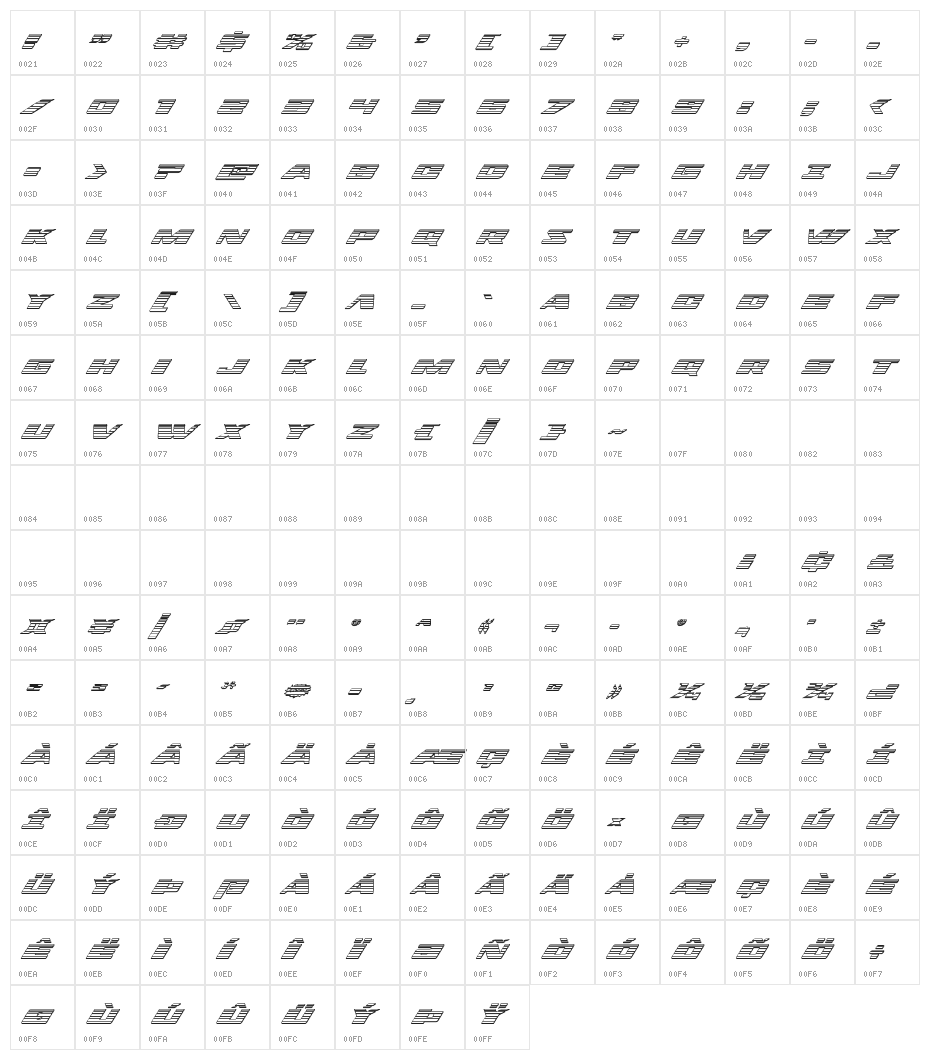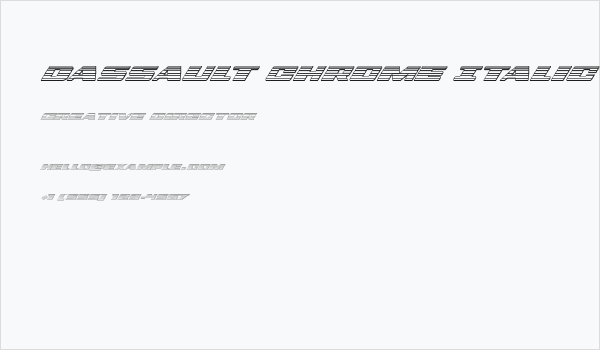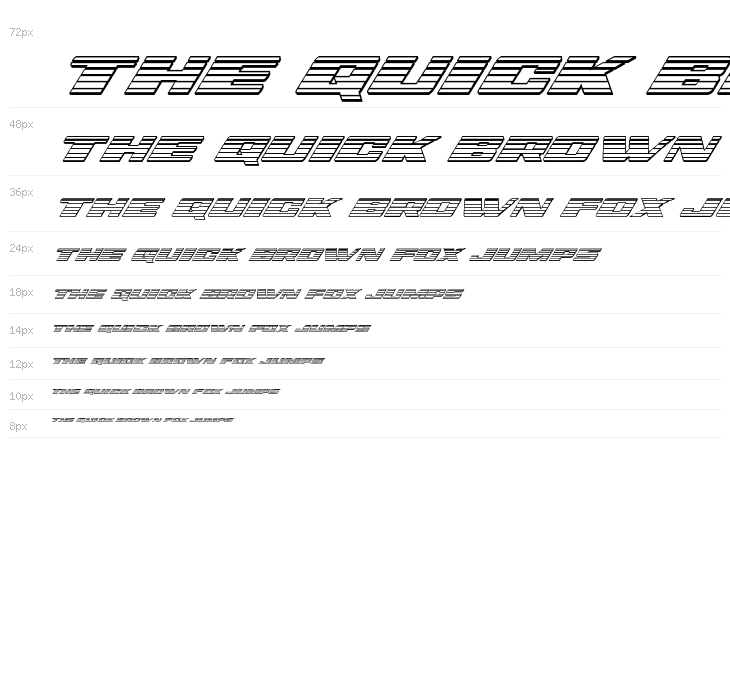
Dassault Chrome Italic Font
Dassault Chrome Italic Description
This font features a futuristic and dynamic design with a distinct italic slant. The characters are composed of multiple parallel lines, creating a striped effect that gives a sense of movement and speed. The uppercase and lowercase letters maintain a consistent style, with sharp angles and a geometric structure. Numbers and special characters follow the same design principles, ensuring uniformity across all glyphs. The font's unique appearance makes it stand out, ideal for projects that require a modern and edgy look.
| Proposed Projects | Ideal for sci-fi themed designs, automotive branding, tech-related logos, and modern advertising campaigns. |